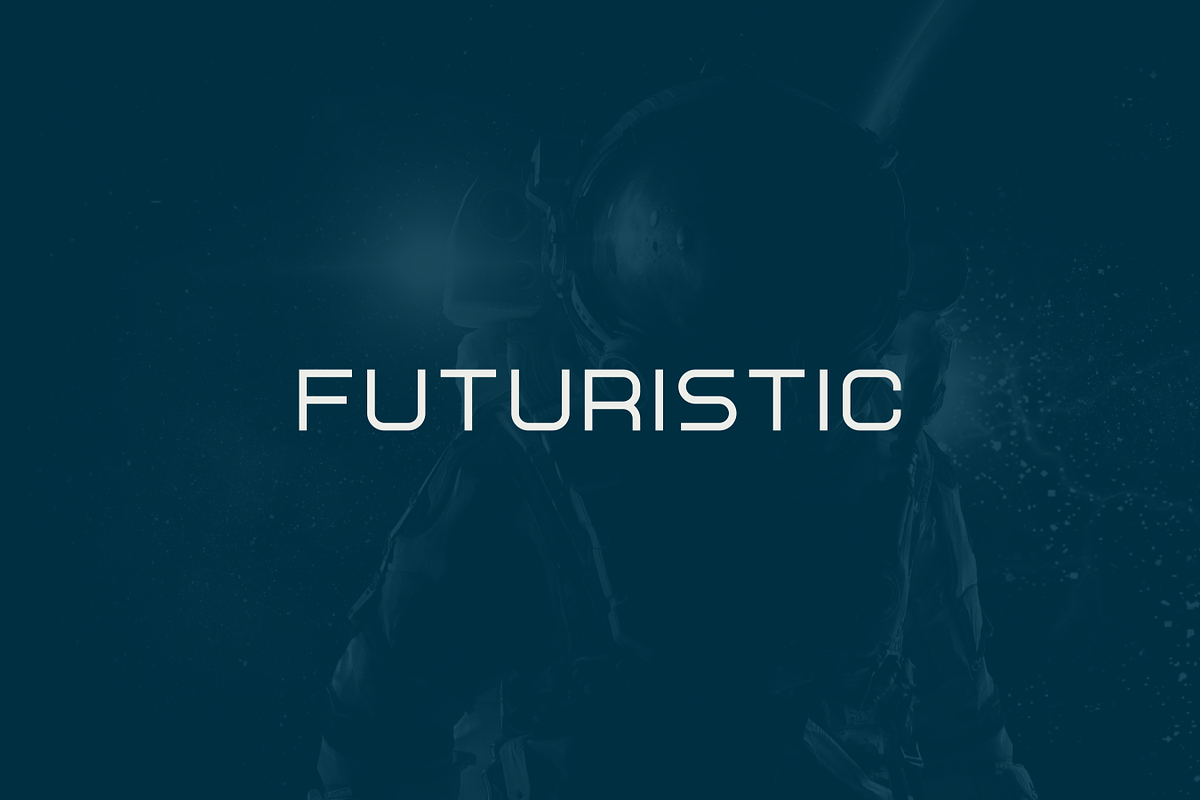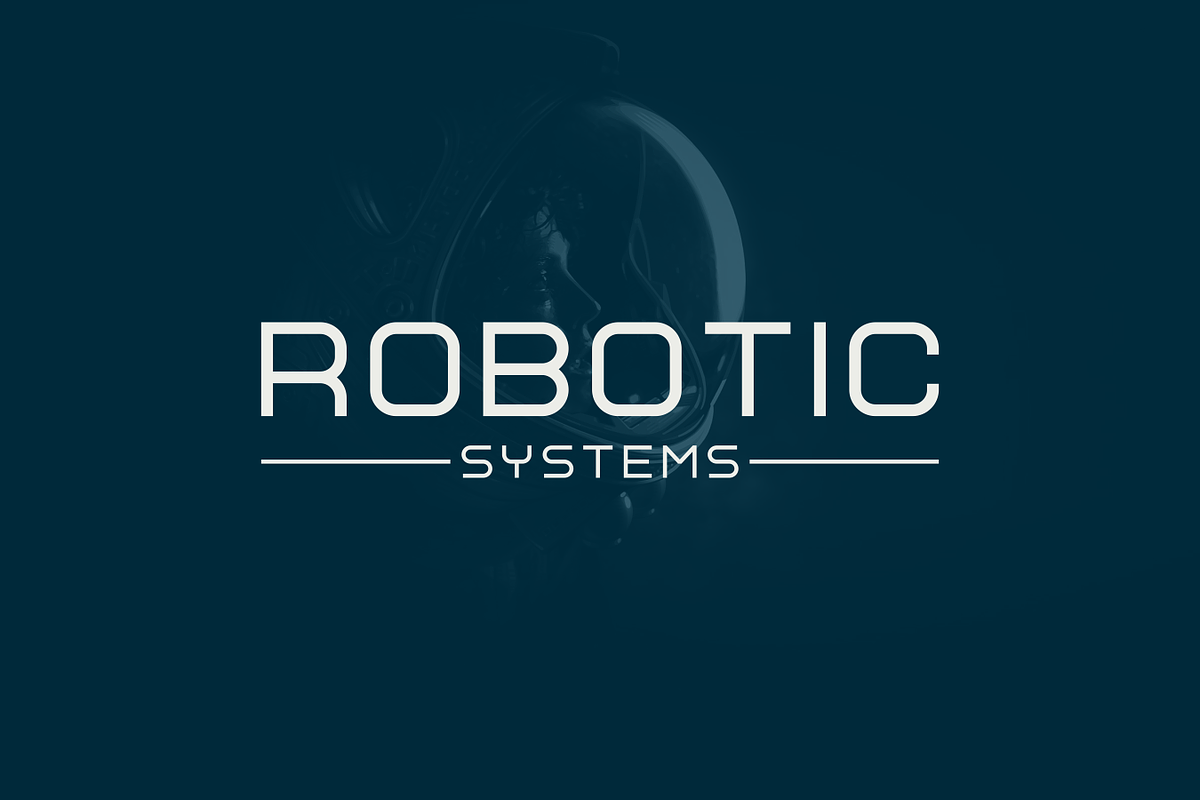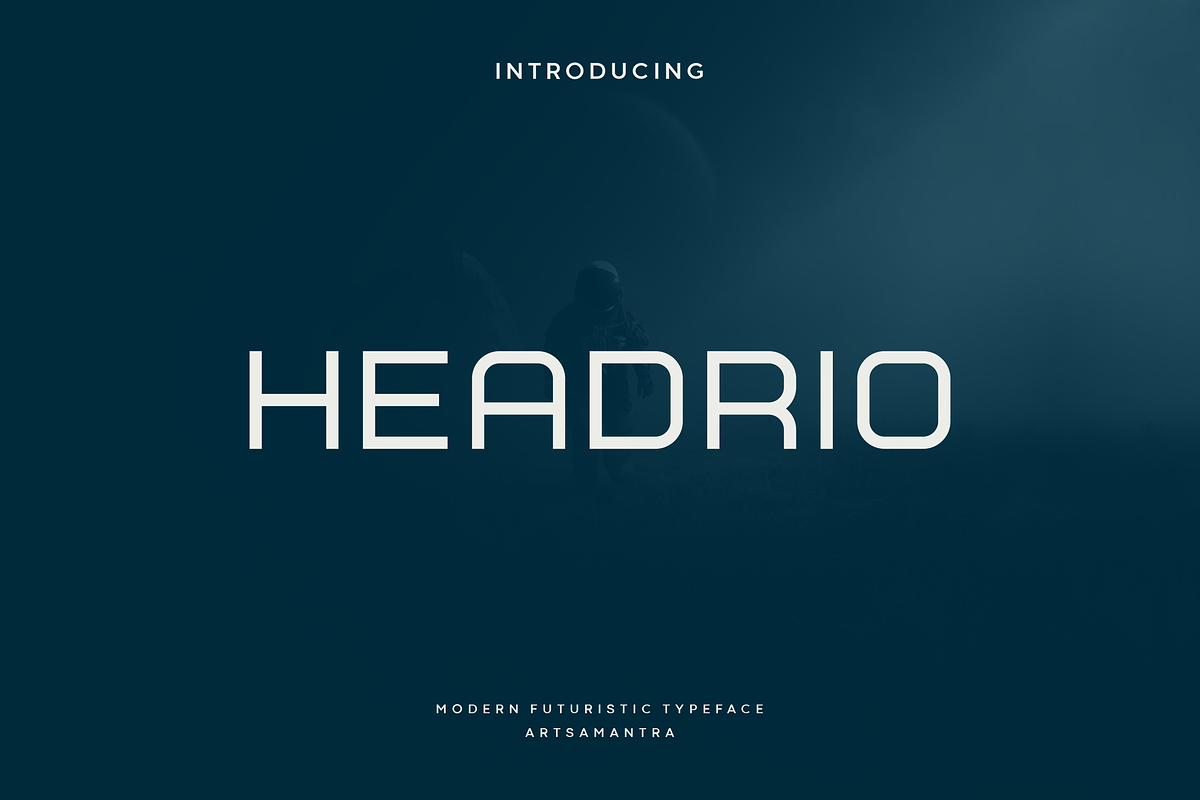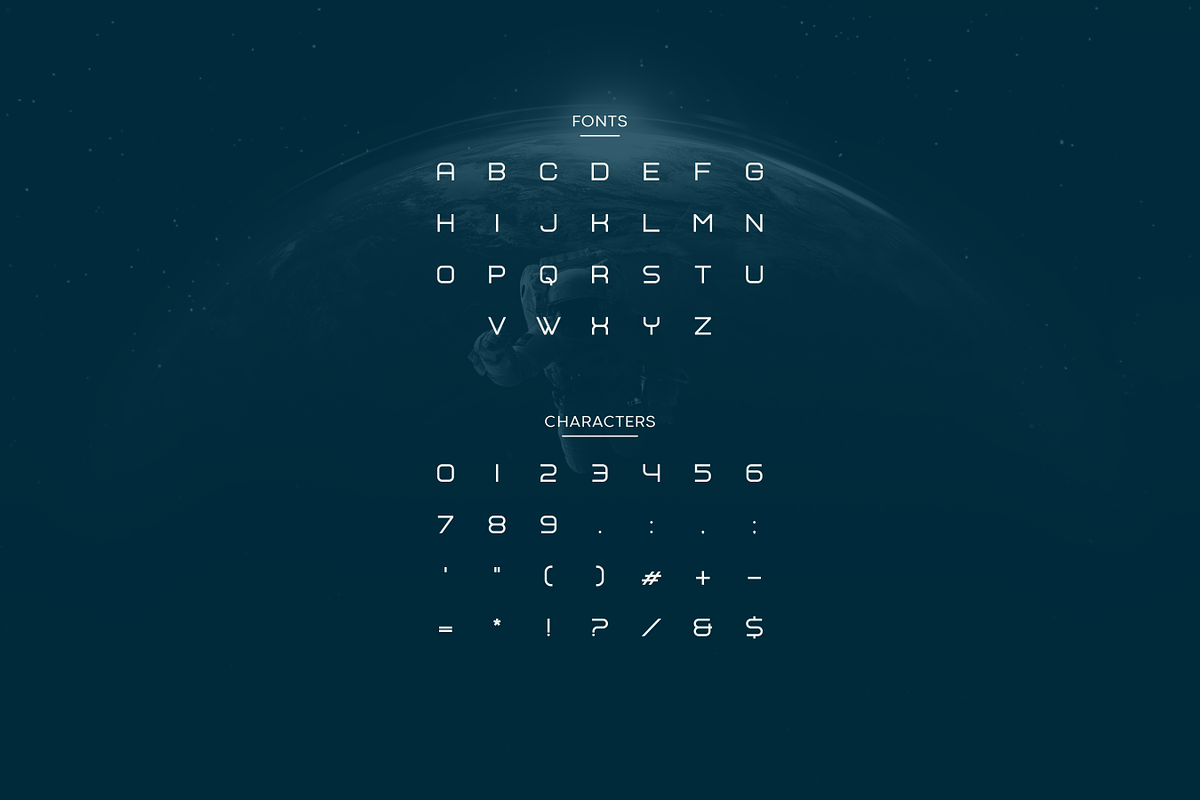
Headrio - Futuristic Typeface
Headrio is a fancy all-caps font that will make your designs look futuristic and modern, bringing a simple design to a clean and elegant look. You can use this font for any purpose, especially for creating future and technology designs. This font is great for logo design, poster, magazine, headline, and many other designs. Headrio is so sophisticated and modern that it will make your designs stand out!